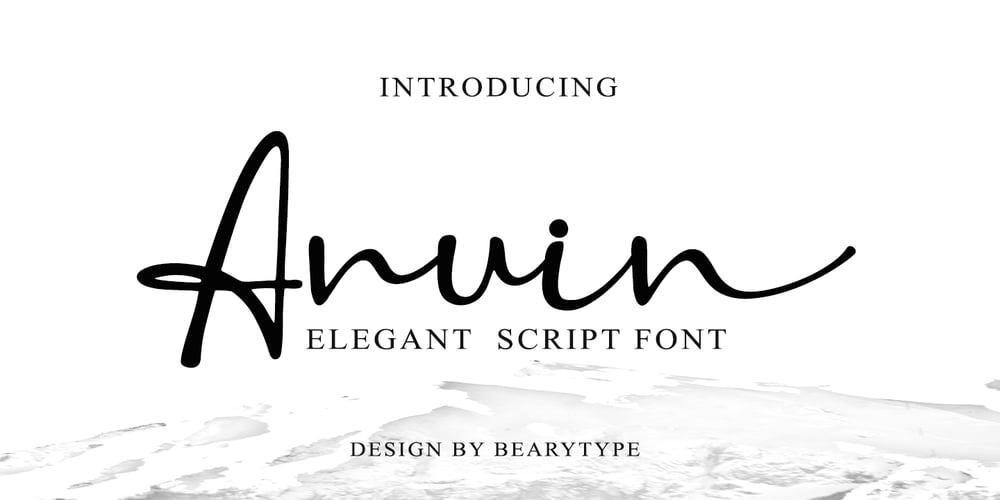
Anuin Font Family was designed by Dian Haniffan Hadi and published by Beary. Anuin contains 1 styles and family package options. Anuin is an elegant script font. Every letter has been carefully crafted to make your text look beautiful. With a modern script style this font will perfect for many different projects including: photography, watermarks, quotes, blog headers, posters, weddings, branding, logos, fashion, apparel, letters, invitations, stationery, and more. This font includes alternate glyphs. You can access the alternate glyph via Font Book (Mac user) or Windows Character Map (Windows user). Thanks for looking.